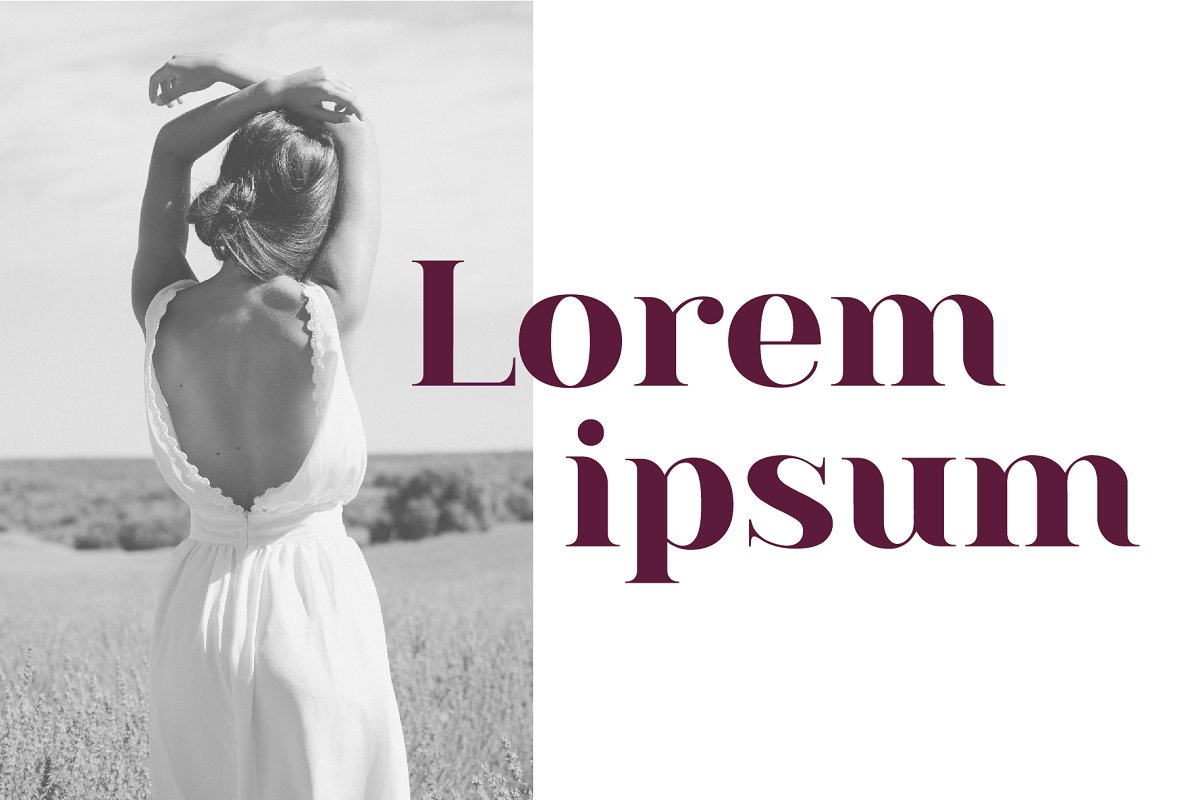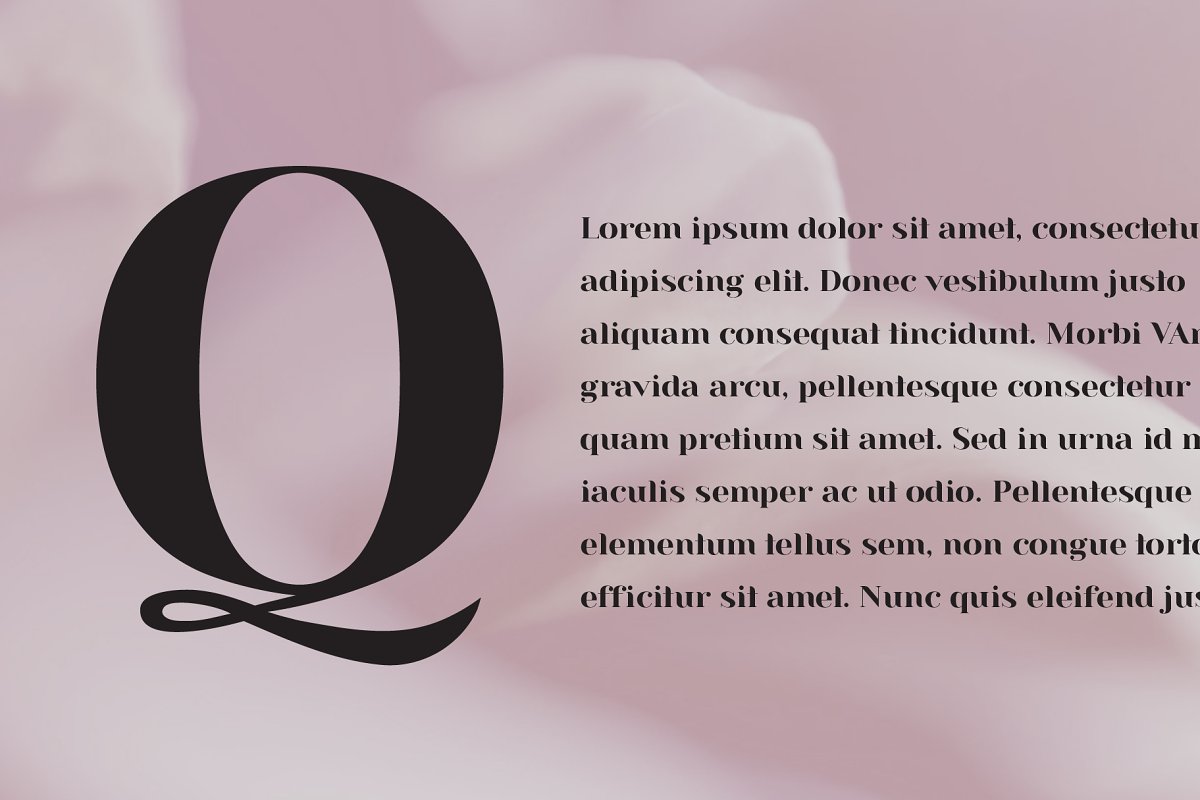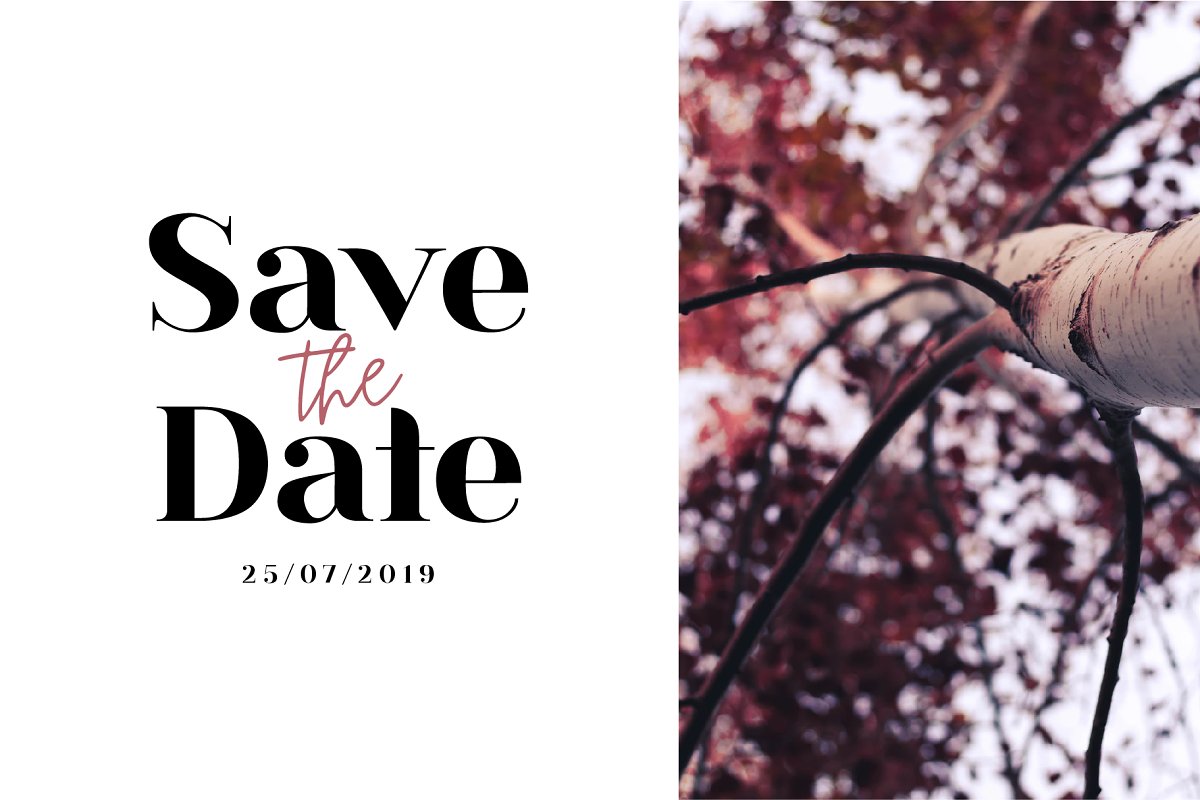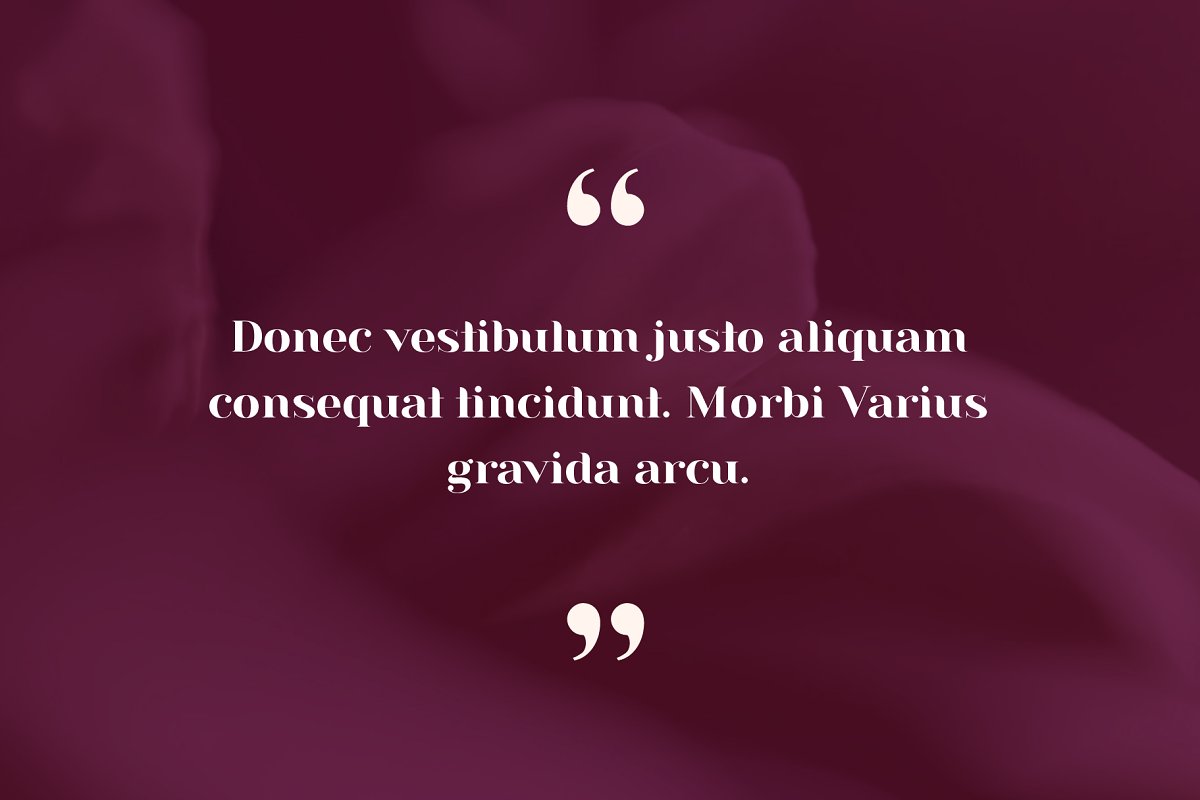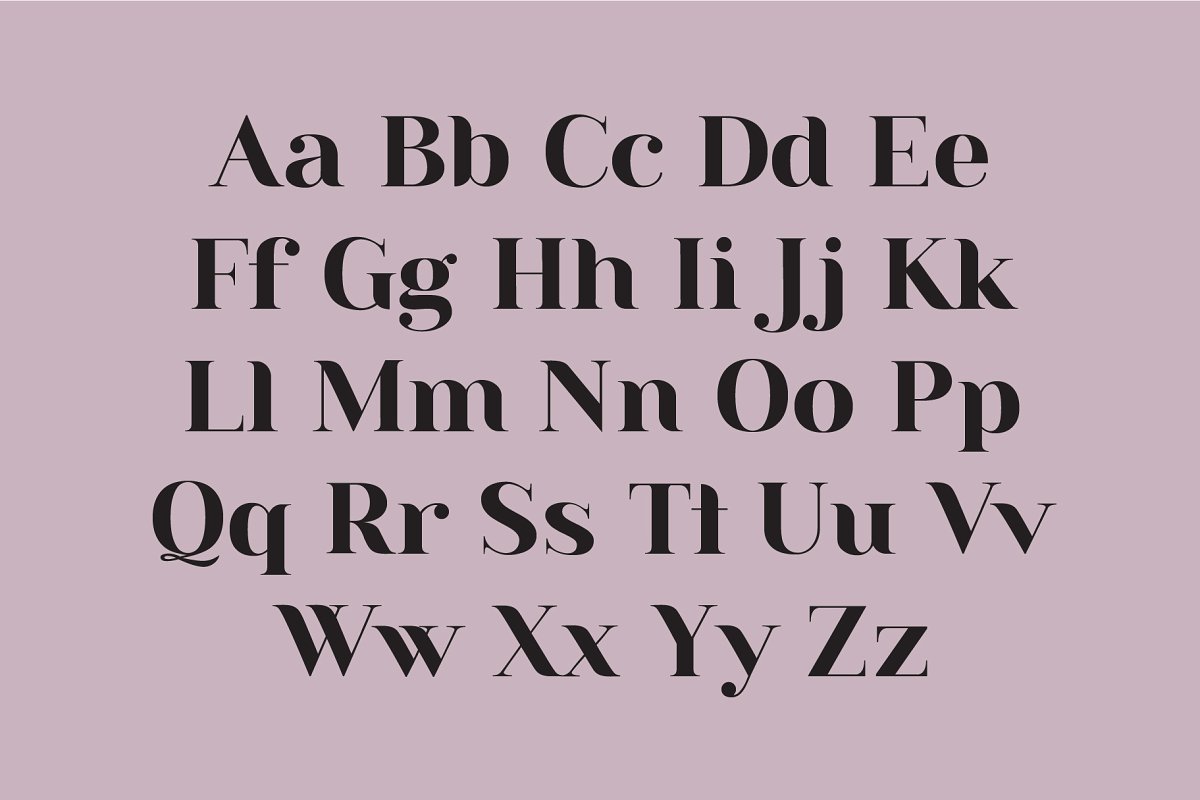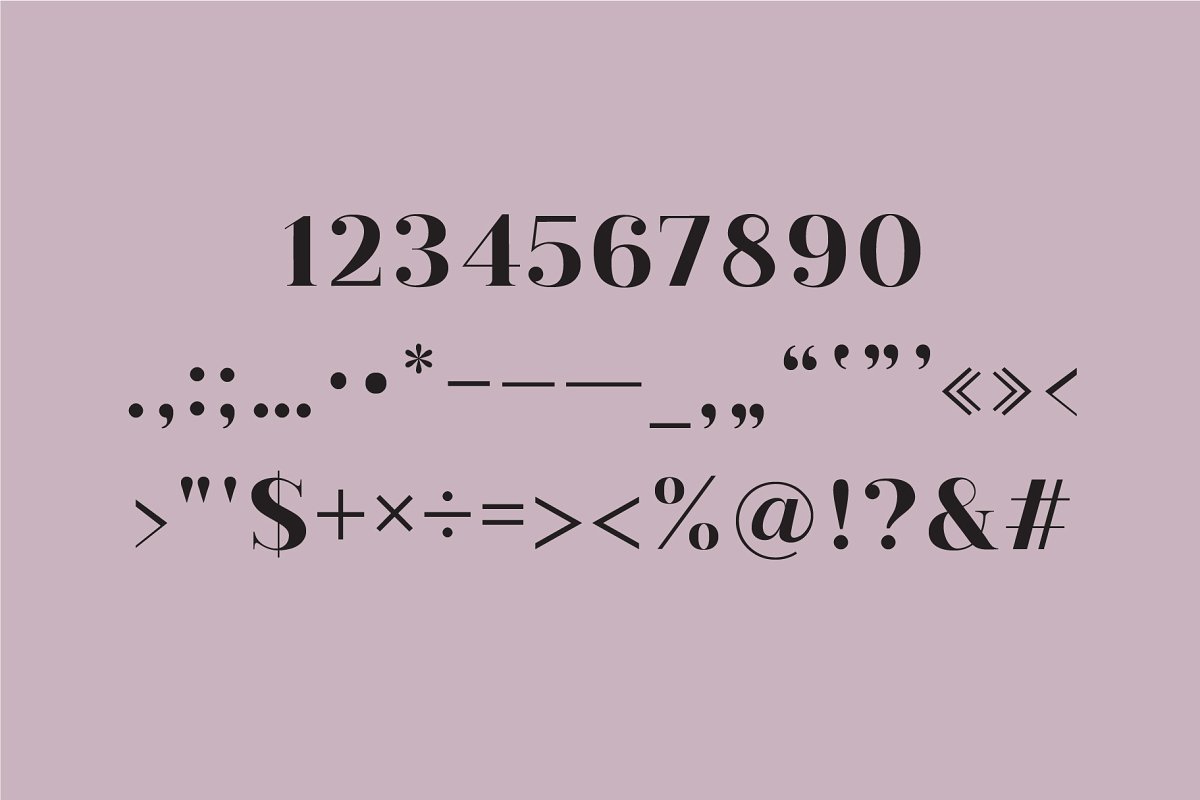
About the Abigail A Modern Serif Font
Introducing Abigail, a modern, classy serif typeface, This font pairs well with modern san serifs, script and handwritten fonts or stand strongly on its own as a heading or editorial font, This purchase includes: Abigail – A serif typeface that contains upper and lowercase characters, number 0-9 and a range of punctuation and symbols, If you have any trouble finding certain characters you can access them via the glyphs panel